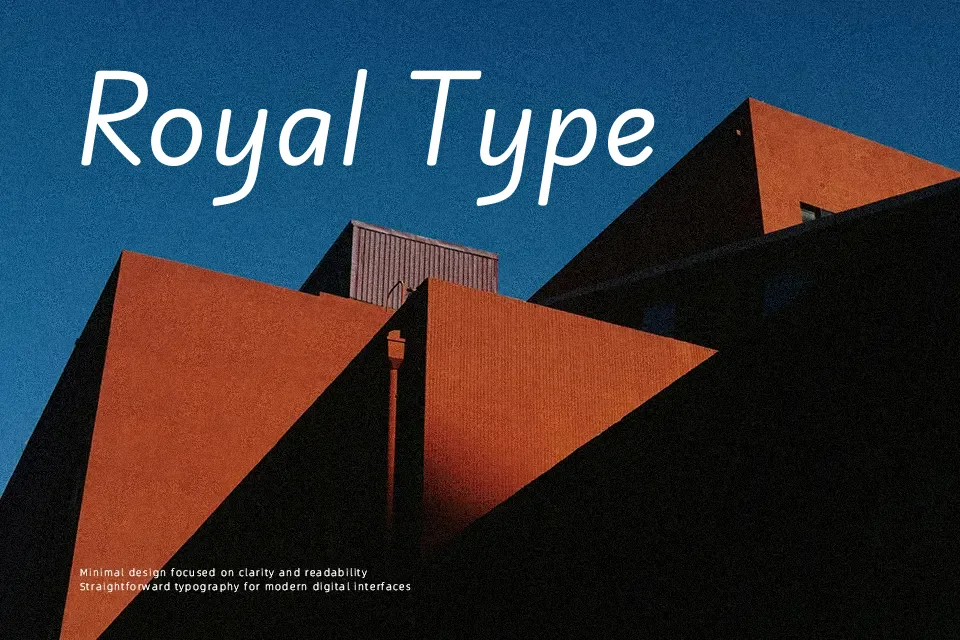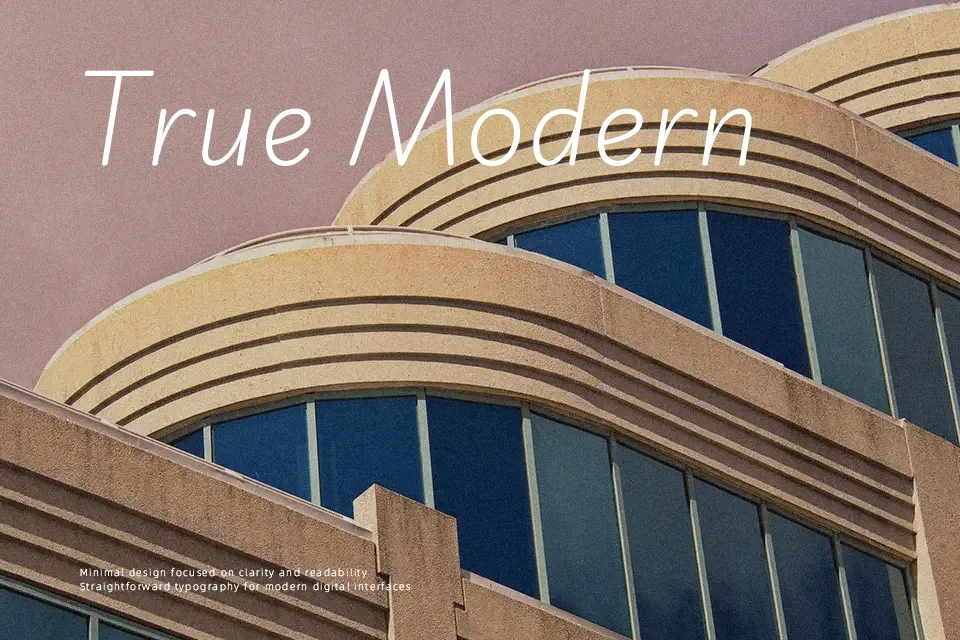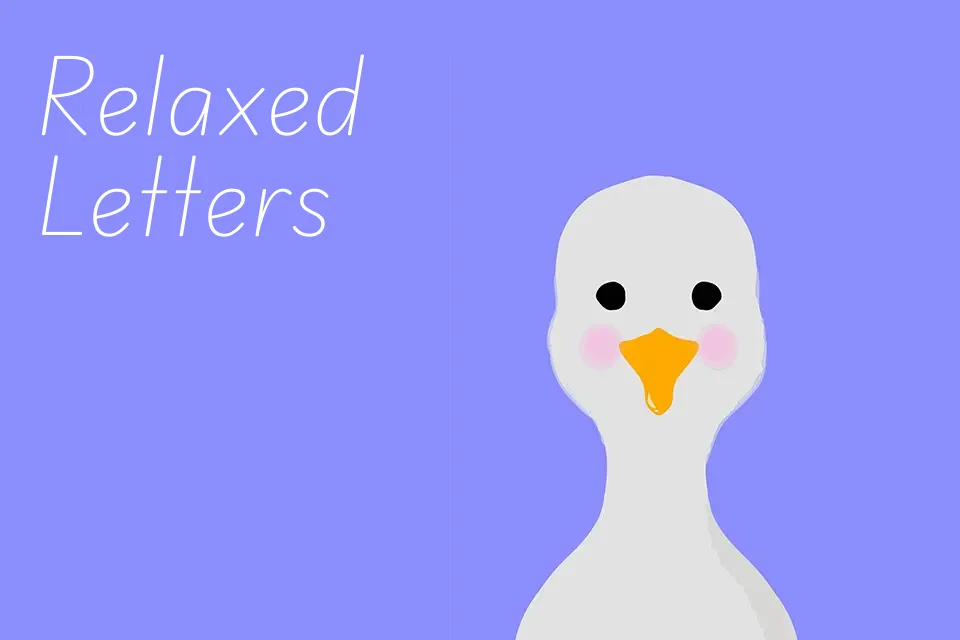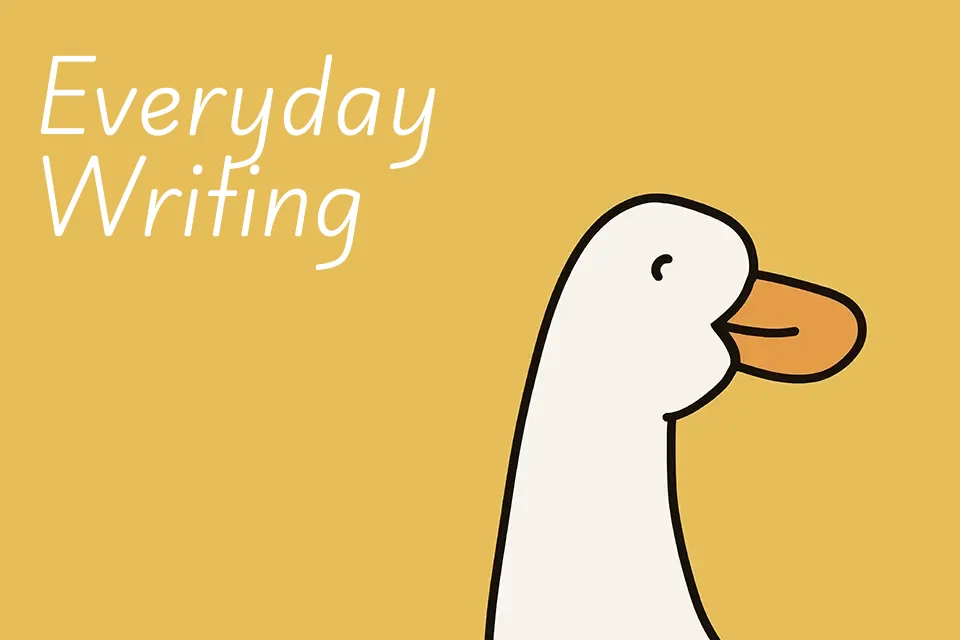
Playwrite NZ Basic Font
Playwrite NZ Basic translates the contemporary New Zealand handwriting style into a structured digital typeface with even strokes, controlled contrast, and generous letter spacing that keeps text readable at classroom and signage sizes. The forms feel informal yet disciplined, so you get a handwritten voice without random quirks that slow reading. It works especially well in worksheets, learning apps, school posters, and child-facing packaging where you want handwriting that still looks “teacher approved.” In dense paragraphs or highly corporate environments, its handwritten character can feel a bit casual, so I would reserve it for headings, short instructional text, and friendly calls to action rather than long policy documents.
educational worksheets and printables
classroom posters and signage
kid-focused apps and learning platforms
friendly branding for schools or community projects
formal corporate reports or legal documents
highly technical UI with very small text
luxury or ultra-minimalist brand identities
Perfect for branding, headline, and kids, with a clean and display style.